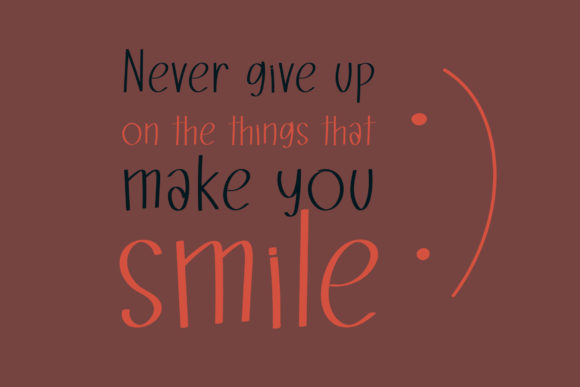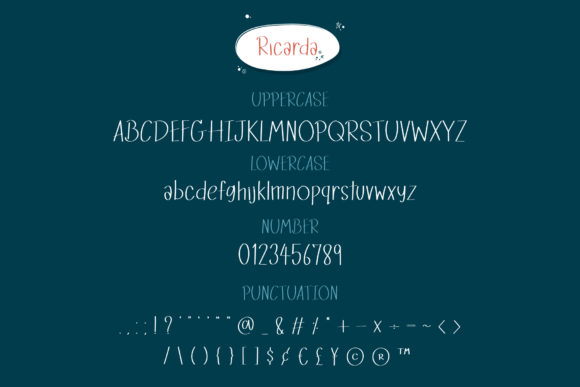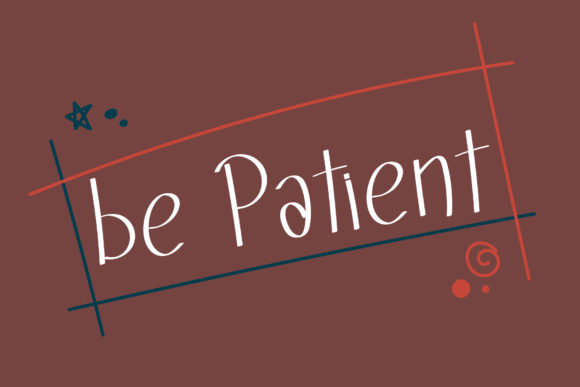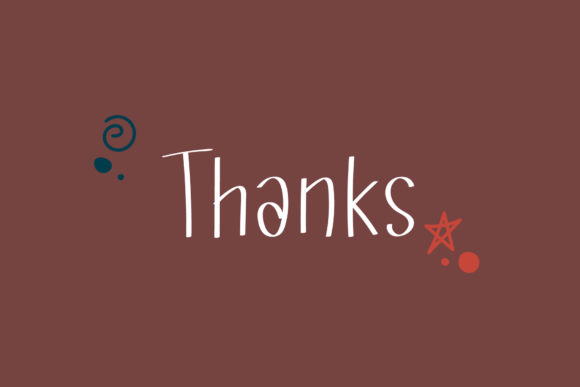
Ricarda Font
About Ricarda Font
Ricarda is a casual, fun handwritten font, designed with a brush pen. Clean and a little bit quirky, this font is the perfect fit for all of your logos, branding, social media, and crafty DIY projects.